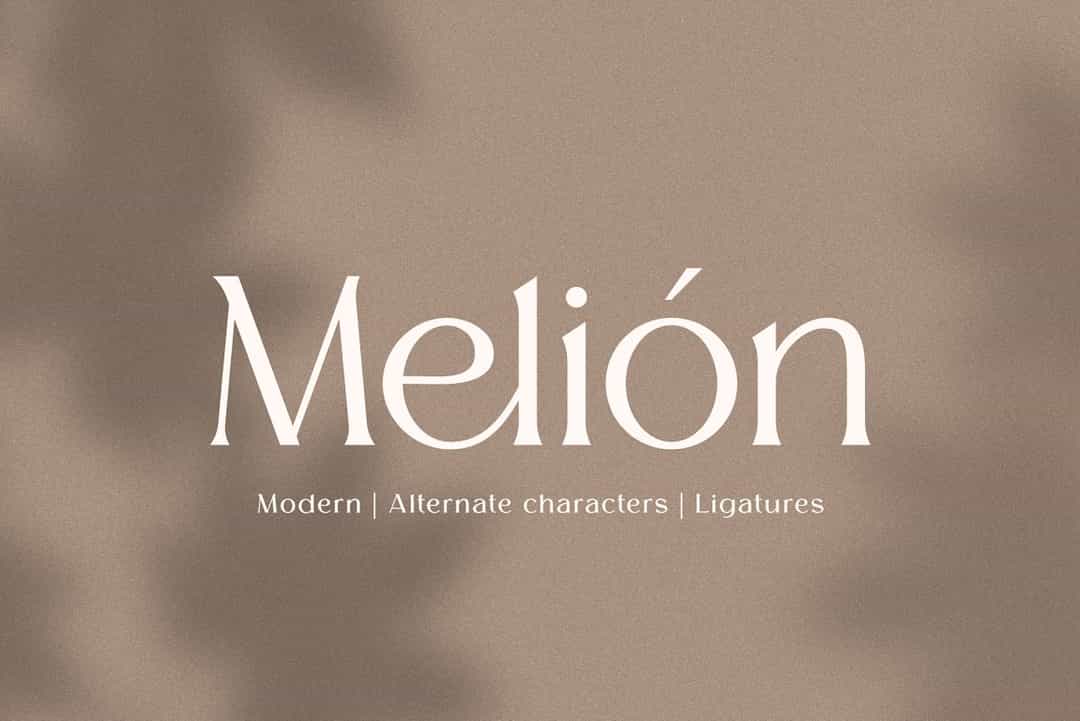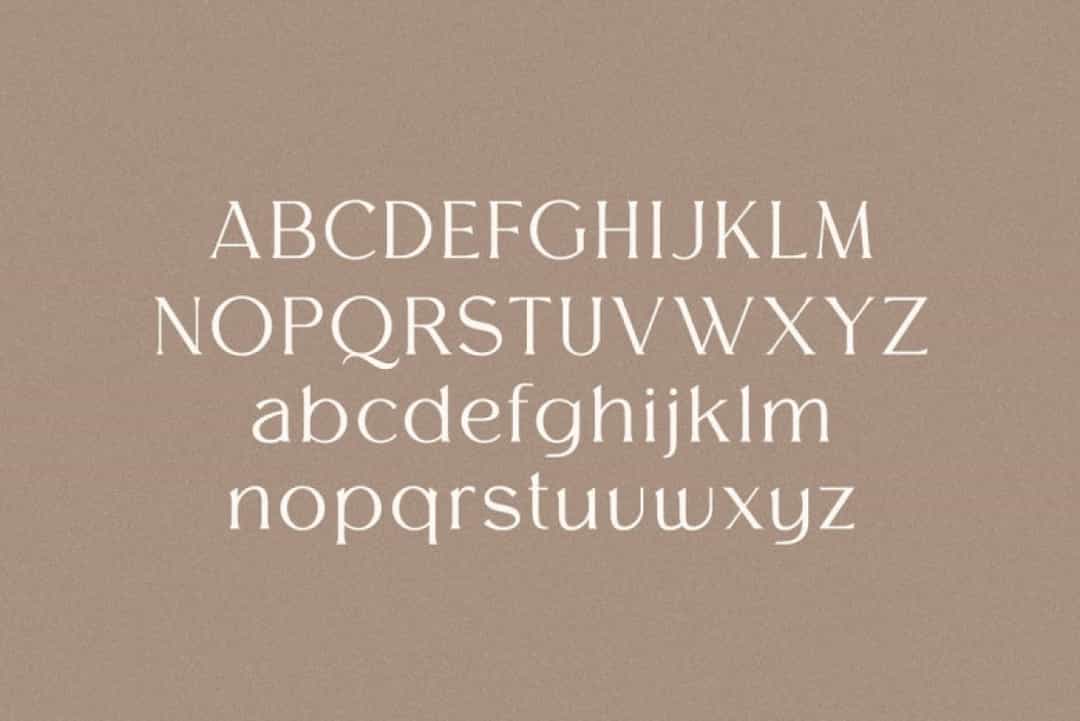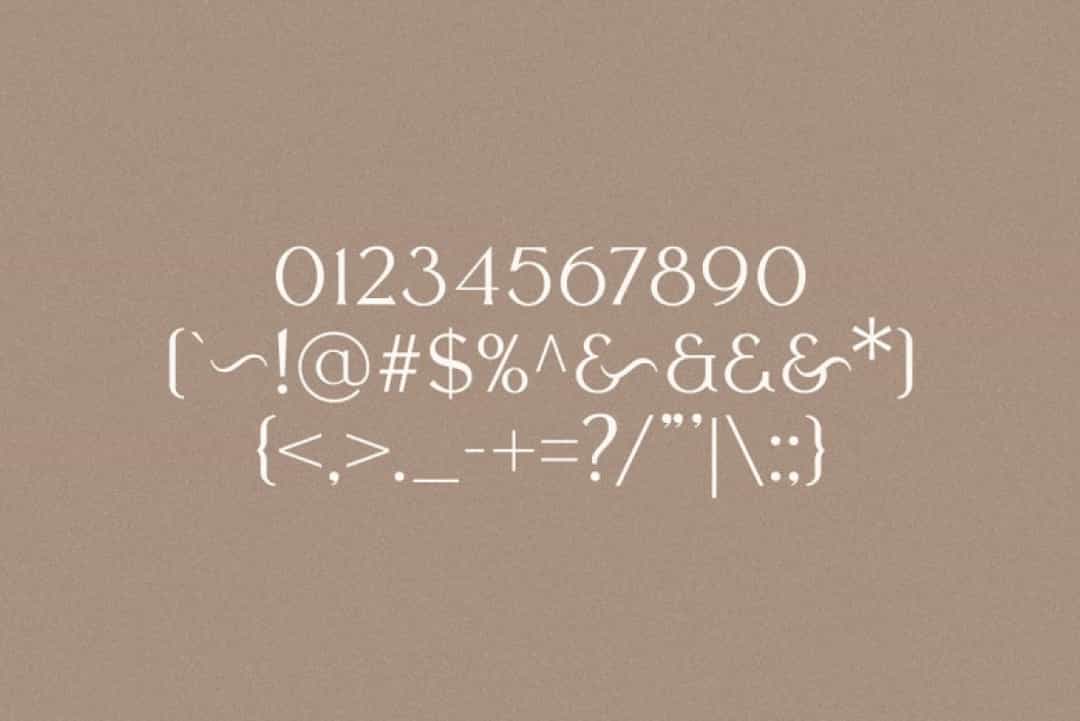
Melion is an elegant and sophisticated serif typeface designed specifically to add sophistication and luxury to projects of a luxurious nature, feminine aesthetic, or sophistication. Perfect for trendy, modern designs!